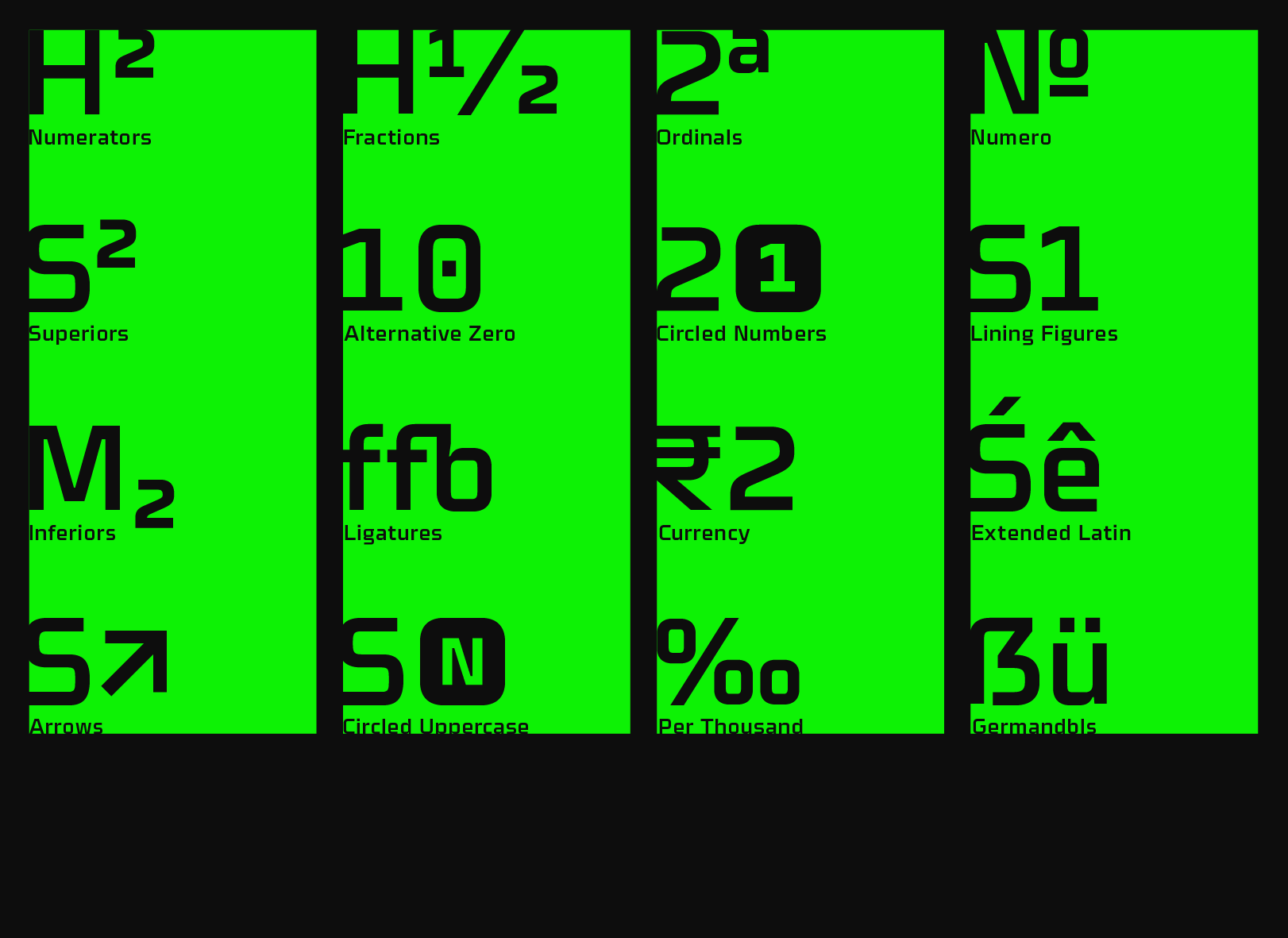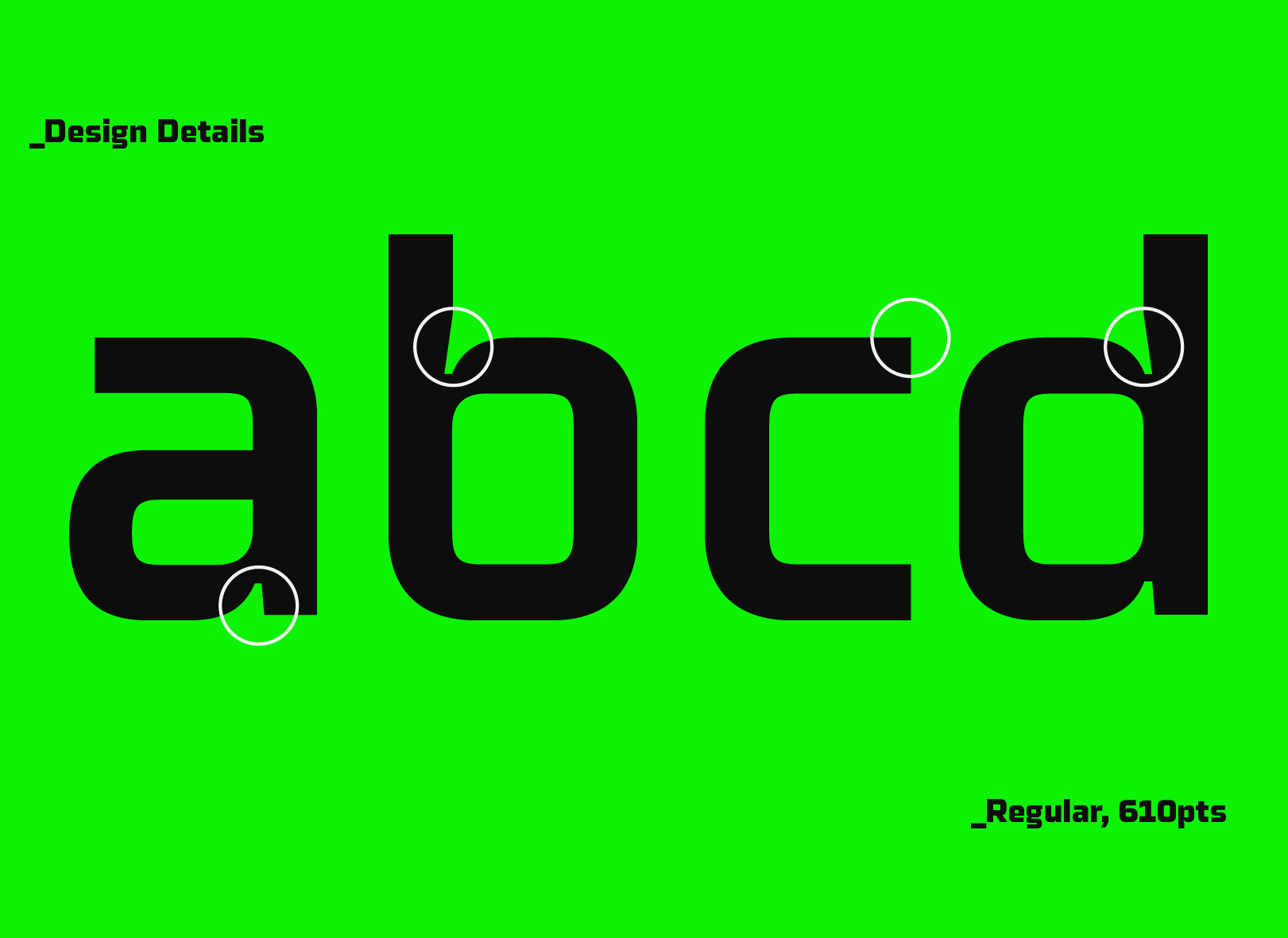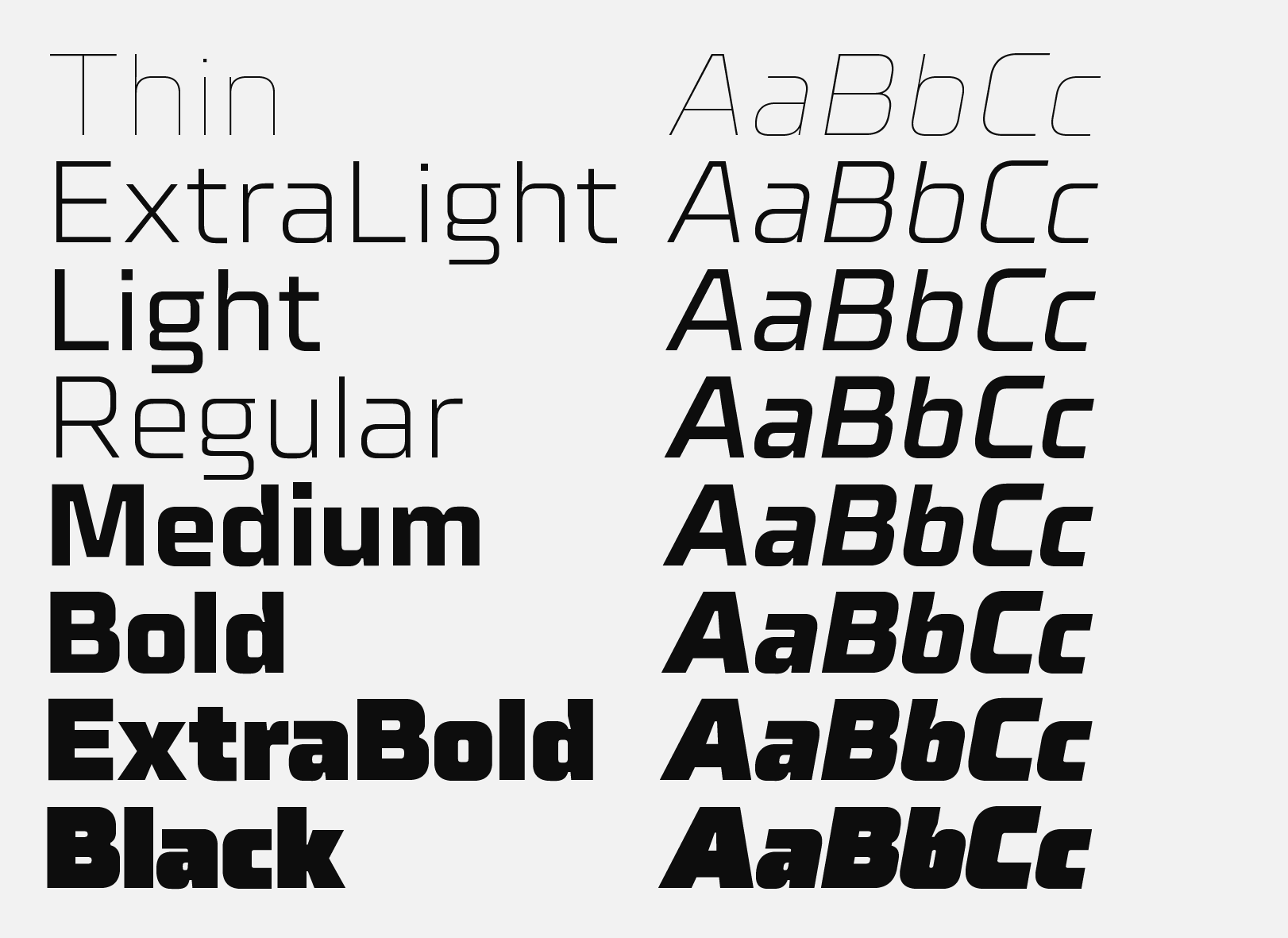
Mynor is a modern squarish sans inspired by machine-readable typefaces of the 1950s, including OCR-A and B. Smooth curved contours with a humanist touch sit in harmony alongside the pure digital straight lines. The contrasting shapes create a modern aesthetic pleasing to the eye and pixel-perfect for modern-day computer-readable scenarios.
Details include seven weights with matching italics, six widths, 450 characters per style, and five variations of numerals with stylistic zeros. OpenType features consist of inferiors, superiors, fractions, case-sensitive punctuation, and language support covering Western, Southern and Central Europe.